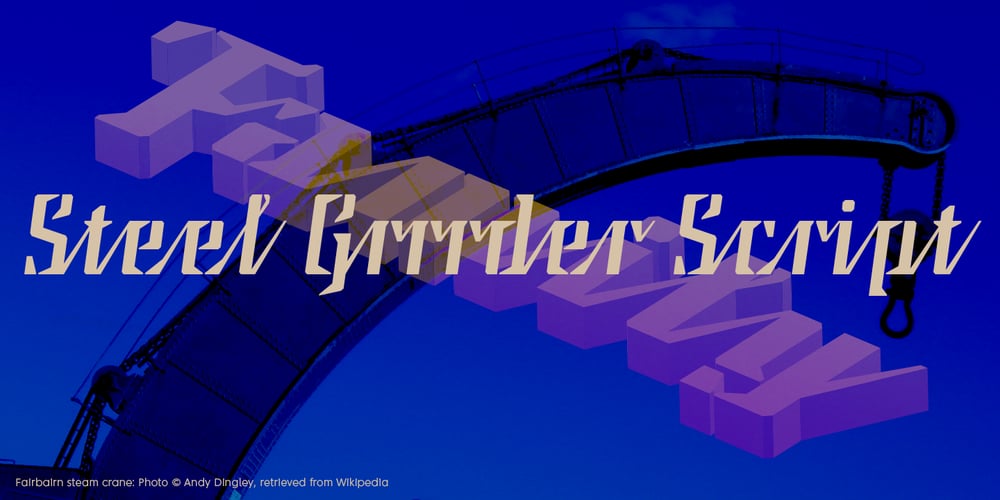
Steel Grrrder Script
Steel Grrrder Script font
Steel Grrrder Script Font Family was designed by Michael Gills and published by ULGA Type. Steel Grrrder Script contains 5 styles and family package options. Steel Grrrder is an industrial-style joining script with a stencil effect, available in six weights ranging from Light to Black. Great for all kinds of display purposes including posters, film titles, book covers, magazines, advertising, signage, packaging, logos and tanks, this is a script with a sharp personality and a steely presence.However, if you’re searching for a “nice” script – sorry, bud – you’re looking in the wrong place. Steel Grrrder Script doesn’t entice the reader with voluptuous curves, flowing swashes or frisky letterforms, instead its sharp chiselled features compel the reader to pay attention. Characters muscle their way along like robotic bulldogs in steel-toe cap boots. Steel Grrrder Script is a veritable slab fest, best categorised as a constructivist joining script. Forged from carbon steel and wrapped in a layer of Graphene, this is a robust display typeface family able to withstand even the most demanding typographical situations.The Steel Grrrrder extended family also includes a six-weight sans-serif with corresponding italics and two display fonts, Groove & Nutjob – all designed to work with each other.